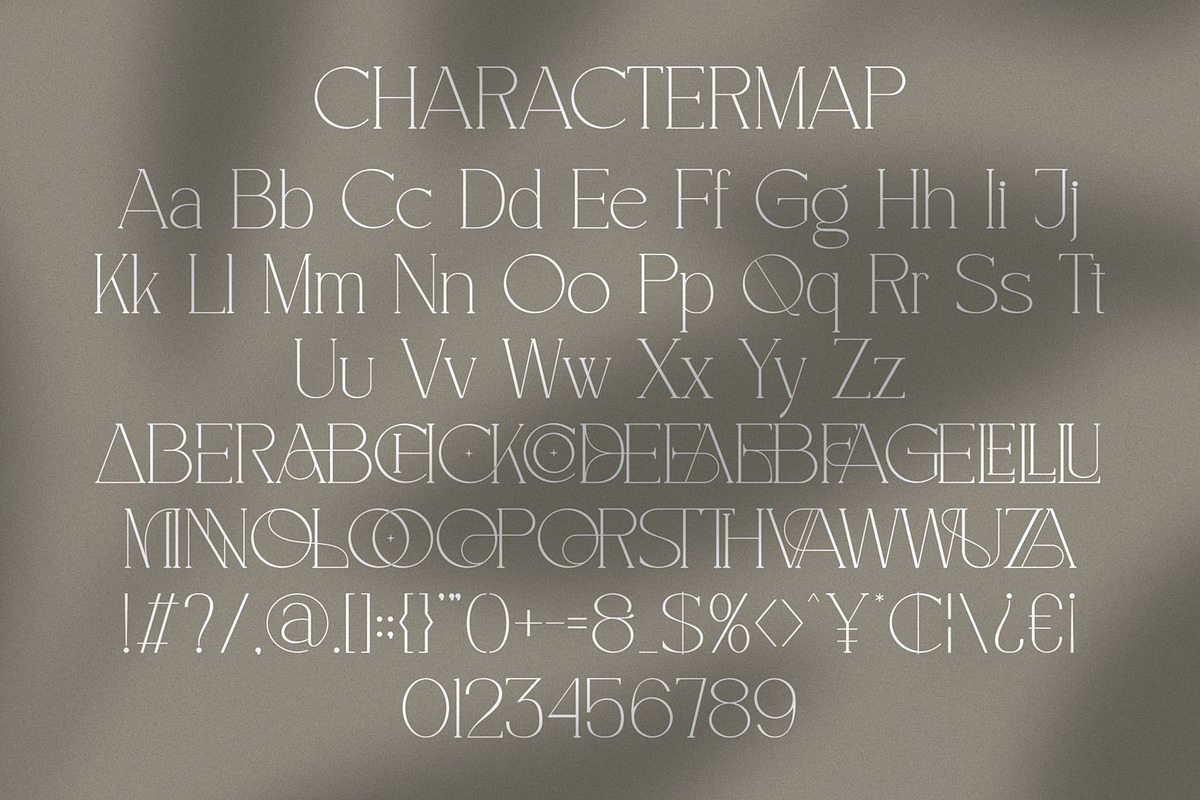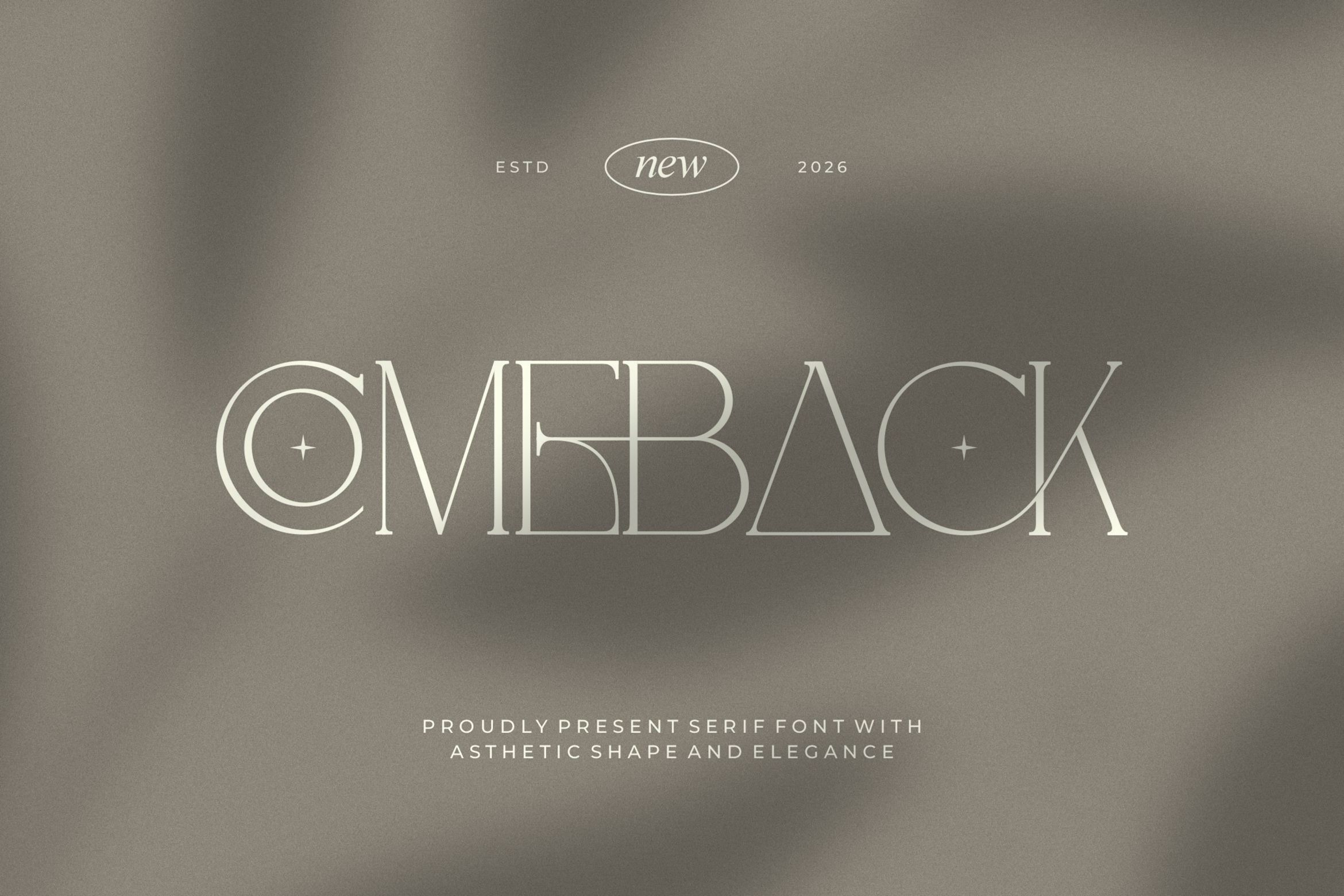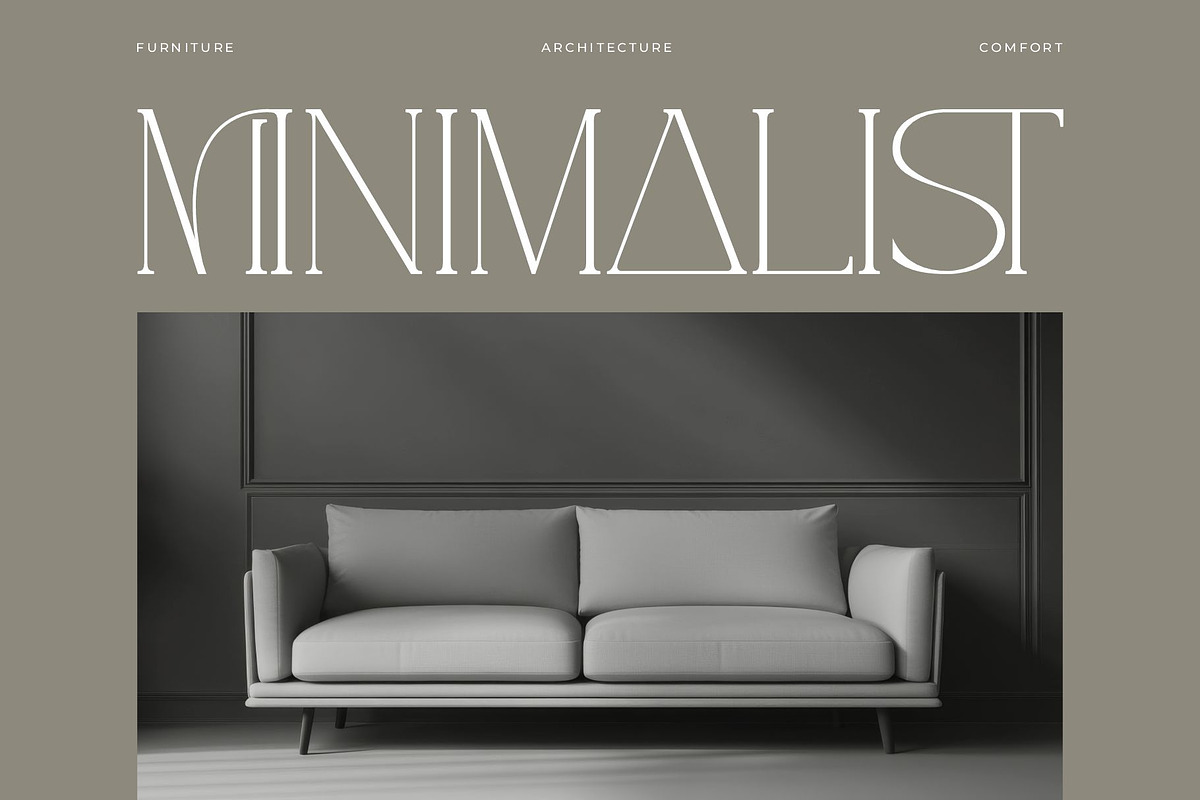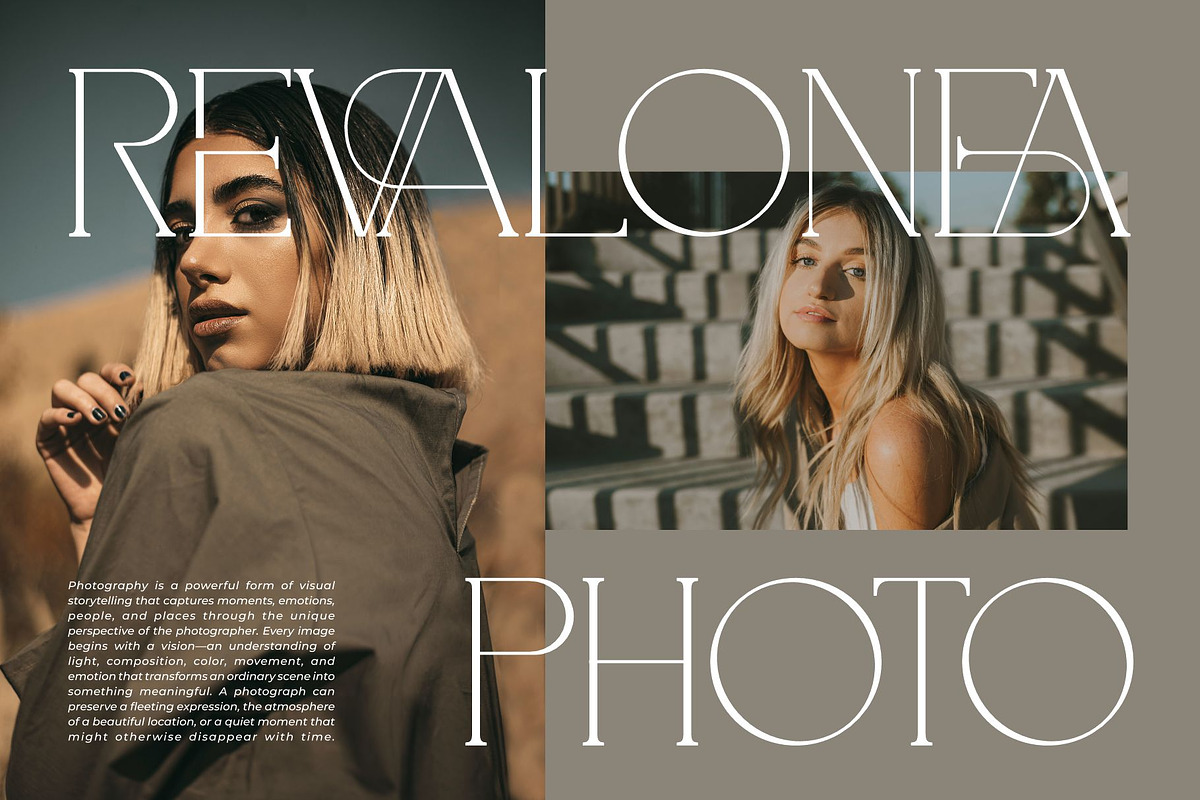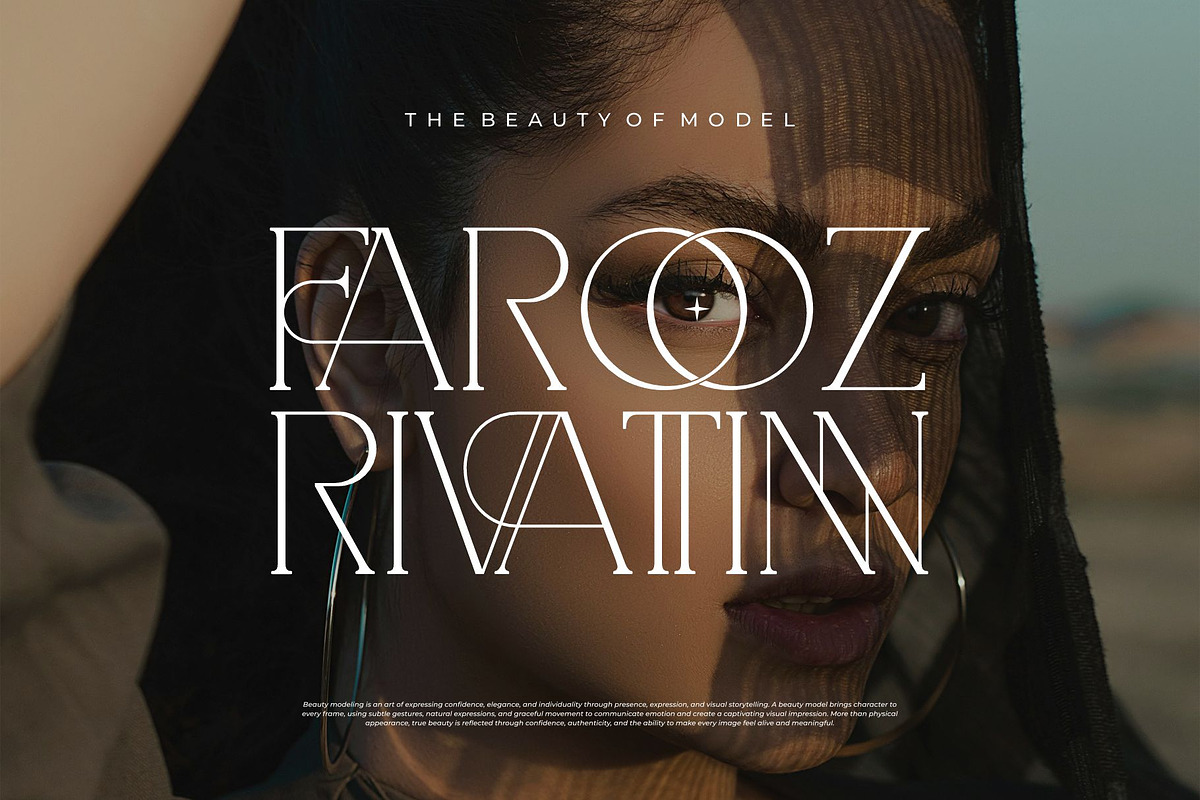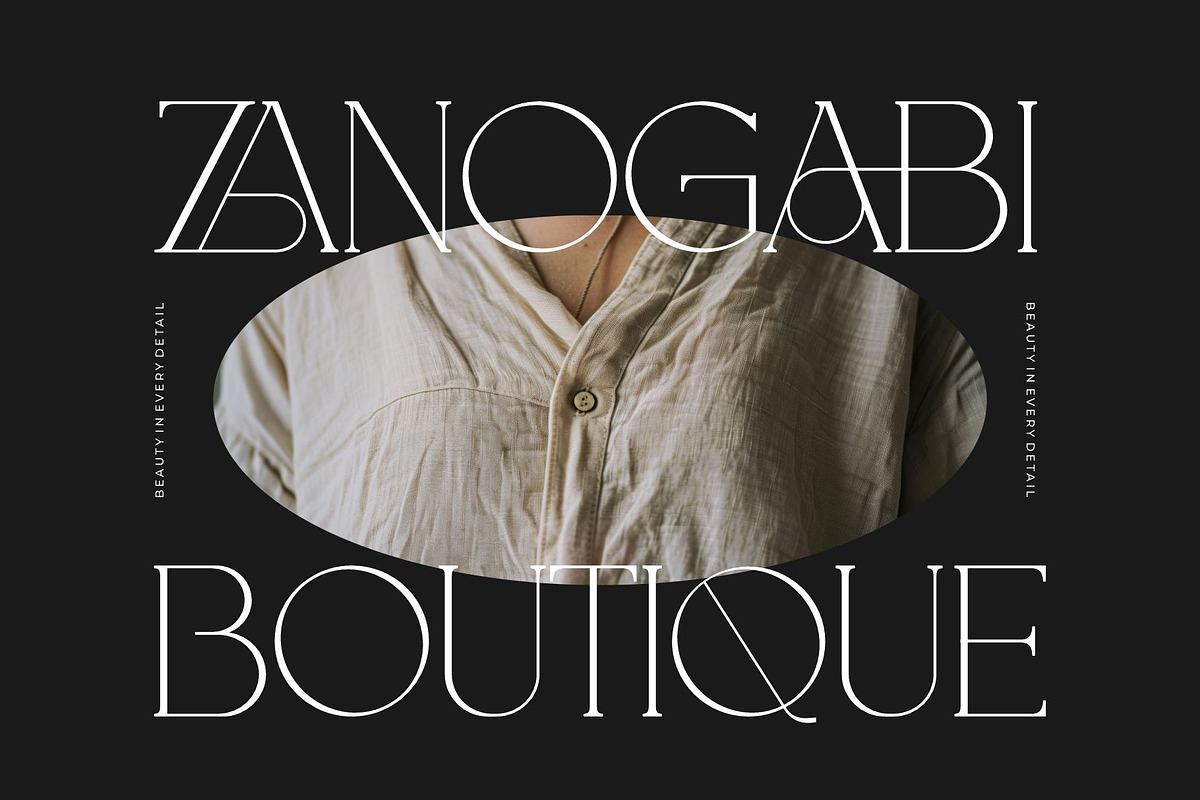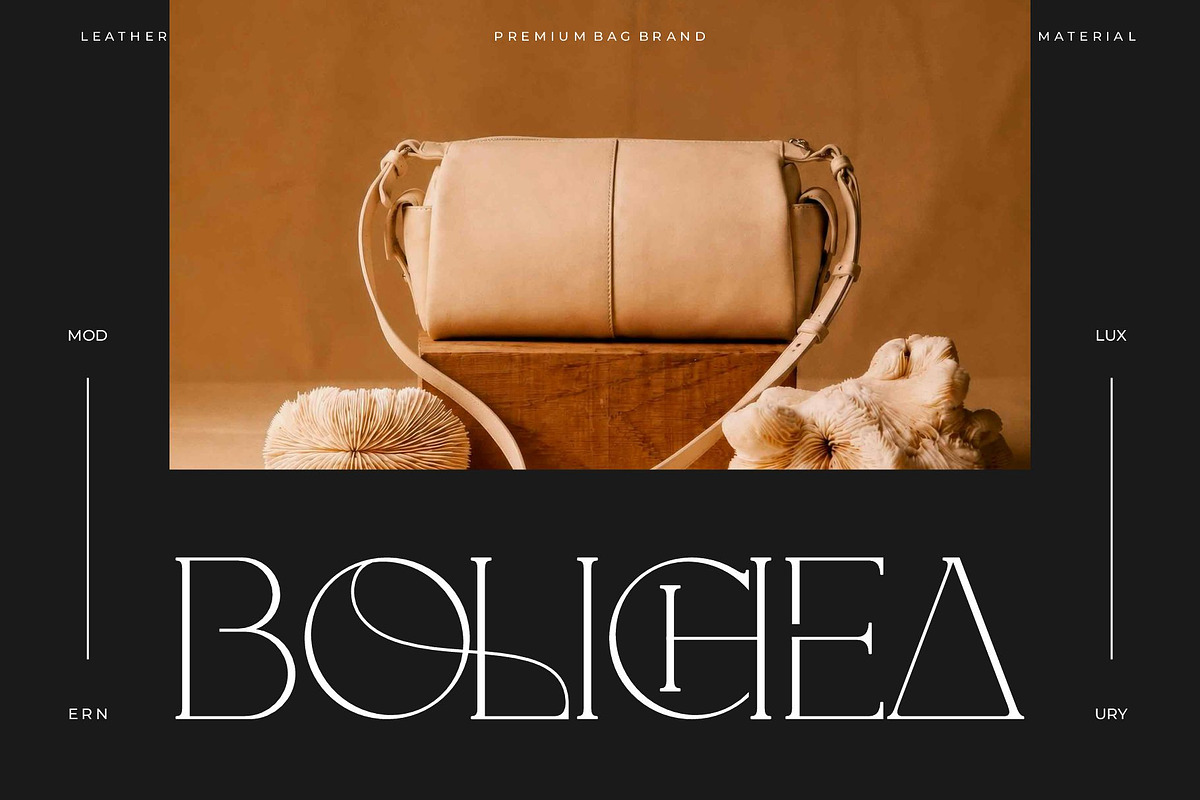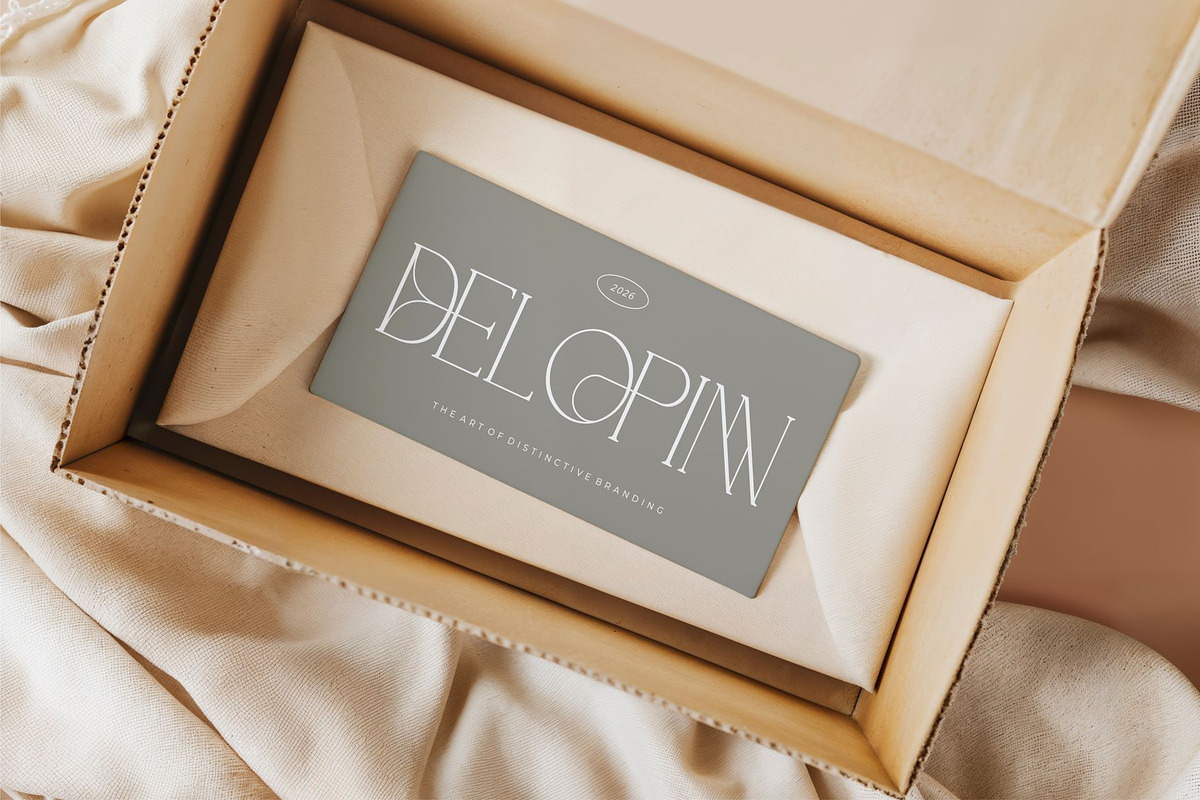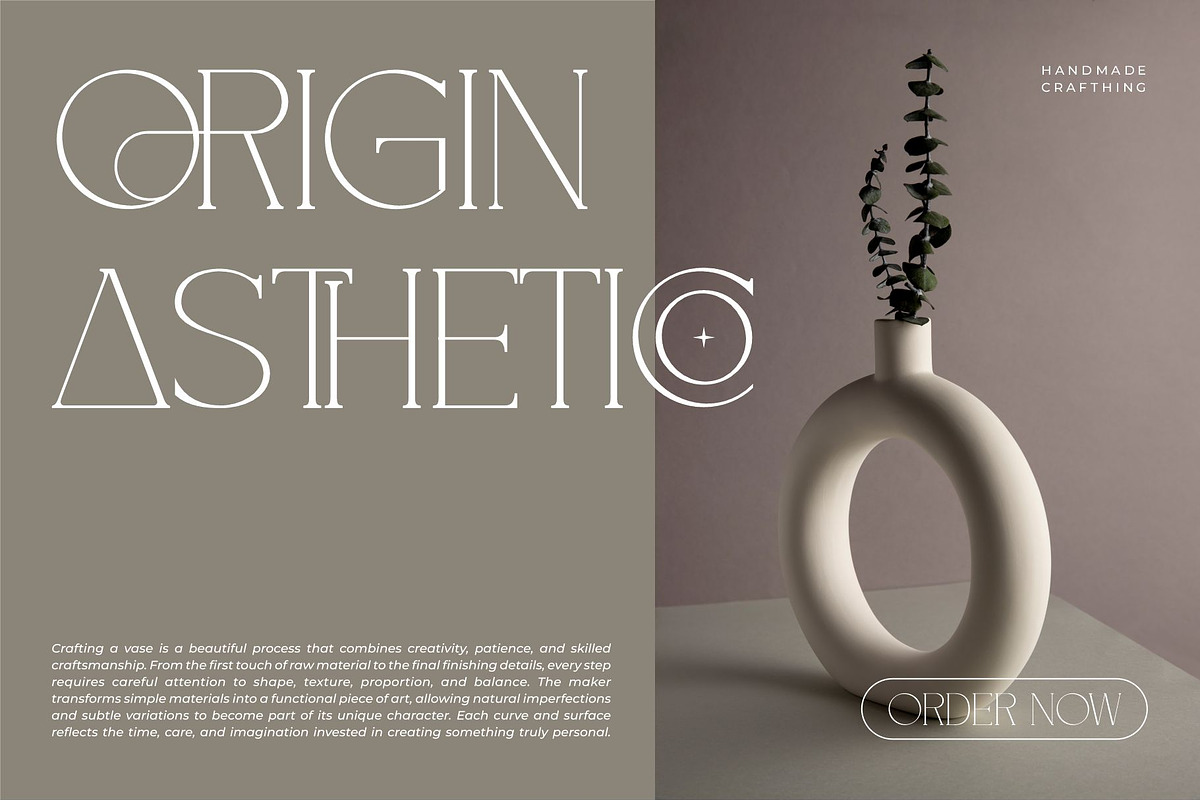
Comeback || Modern Classy Serif Font
Comeback serif font is embodies understated sophistication with its low-contrast serif design and slender proportions. Its thin strokes and gentle curves exude an aura of refined elegance.
Designed to evoke a sense of sophistication and grace, Leirent is an ideal choice for projects that require an elegant touch. Its subtle nuances and delicate form convey eloquence effortlessly.